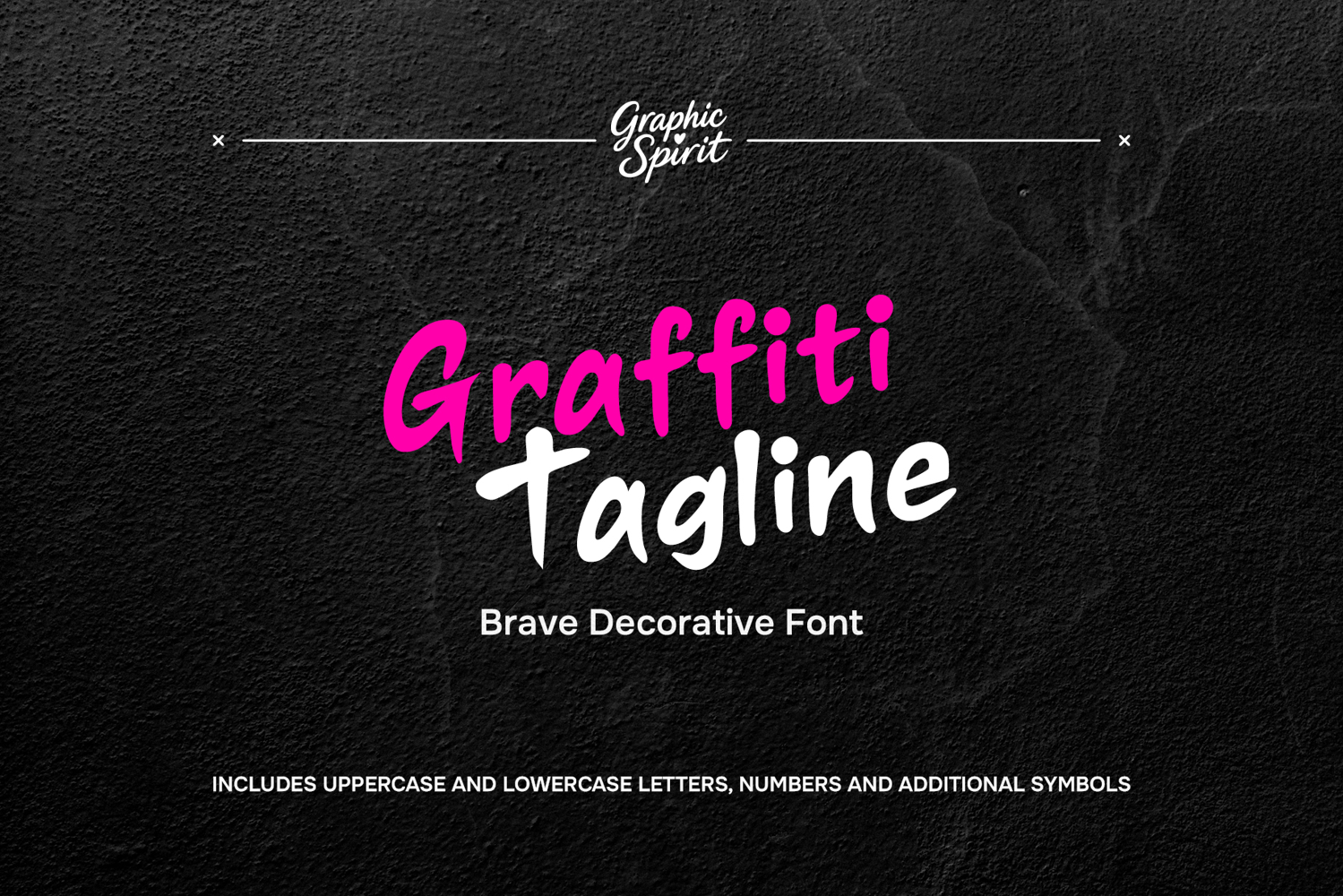
Graffiti Tagline Brave Decorative Font
🖋️ Unleash your boldest creative visions with the Graffiti Tagline Brave Decorative Font! This striking digital typeface captures the raw energy and fearless spirit of street art, perfect for making your designs stand out. It’s ideal for eye-catching logos, edgy branding, social media graphics, and statement-making merchandise.
💥Elevate your projects with a unique, urban edge that commands attention and expresses pure confidence. Let your creativity run wild! ✨